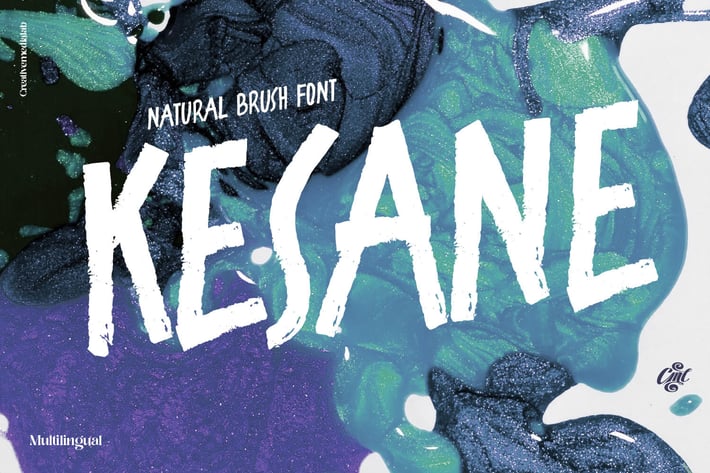
Kesane - Natural Brush Font
Kesane - Brush Font
All uppercase character in handwritten brush style, look natural and unique. best for display font, poster, logo and more..
multilingual support.